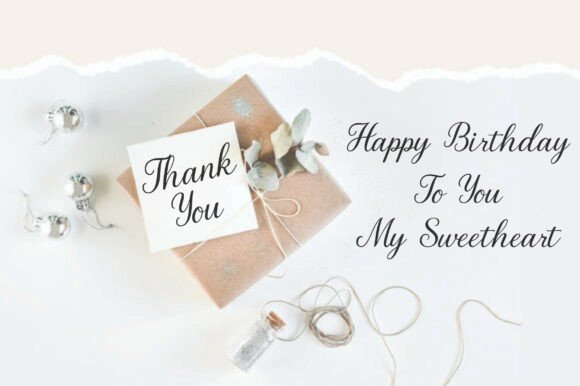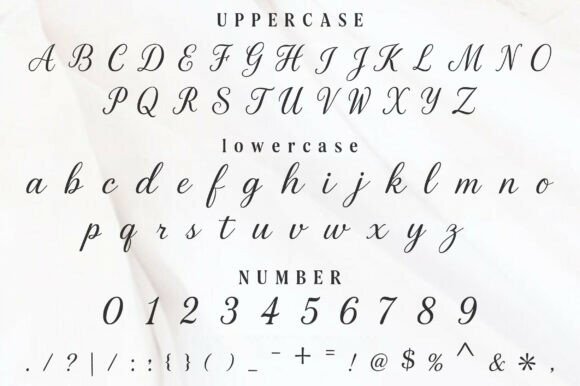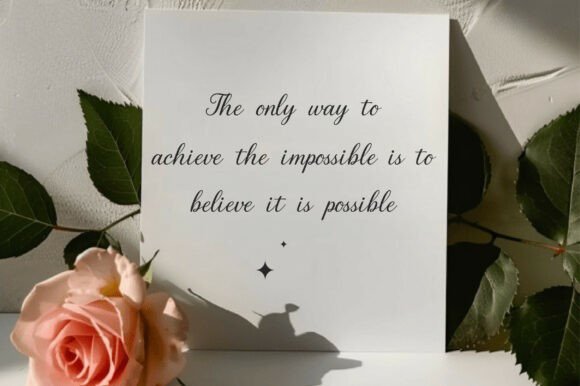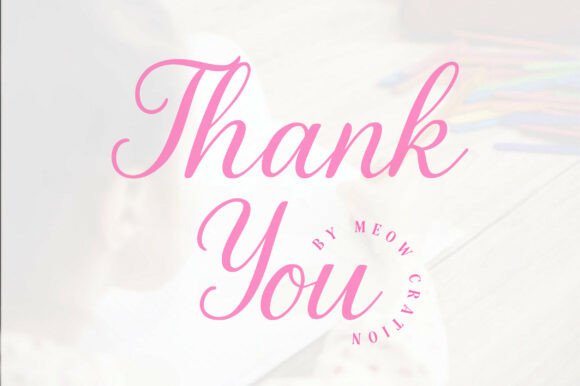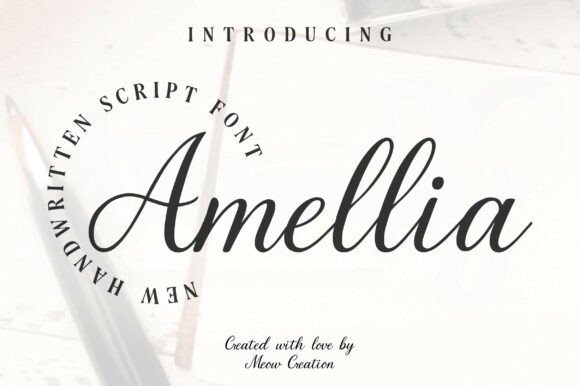
Introducing Amellia Font: Elevate Your Designs with Elegance and Sophistication
In the world of typography, fonts play a crucial role in conveying the tone and aesthetic of a design. For designers and crafters seeking to add a touch of elegance and sophistication to their projects, Amellia Font is an excellent choice. This beautiful, handwritten script font is designed to bring a modern and feminine touch to your designs, making it perfect for a variety of applications.
The Beauty of Amellia Font
Amellia Font is an elegant handwritten script font that boasts smooth curves and a stylish flow, creating a natural handwritten look that is both warm and inviting. Its graceful ligatures and balanced letterforms make it an ideal choice for designers seeking a classy and romantic aesthetic. Whether you’re working on a wedding invitation, branding project, logo design, greeting card, or product packaging, Amellia Font is sure to bring beauty and elegance to every project.
Key Features of Amellia Font
- Elegant Handwritten Script: Amellia Font features a beautiful, handwritten script that adds a touch of sophistication and elegance to your designs.
- Modern and Feminine Touch: With its smooth curves and stylish flow, Amellia Font brings a modern and feminine touch to your projects, making it perfect for designs that require a delicate and refined aesthetic.
- Graceful Ligatures and Balanced Letterforms: The font’s graceful ligatures and balanced letterforms create a natural handwritten look that is both warm and inviting.
- Versatile: Amellia Font is suitable for a variety of design applications, including wedding invitations, branding, logos, greeting cards, and product packaging.
Perfect for Wedding and Branding Designs
Amellia Font is an excellent choice for wedding designs, including invitations, save-the-date cards, and wedding stationery. Its elegant and sophisticated aesthetic makes it perfect for creating beautiful and memorable wedding designs. Additionally, the font’s modern and feminine touch makes it an excellent choice for branding and logo designs, particularly for businesses that require a delicate and refined aesthetic.
Tips for Using Amellia Font
- Pair with Neutral Colors: Amellia Font looks stunning when paired with neutral colors such as white, beige, or light gray. This creates a clean and elegant look that is perfect for wedding designs and branding projects.
- Experiment with Ligatures: Amellia Font features beautiful ligatures that add a touch of elegance and sophistication to your designs. Experiment with different ligatures to create a unique and personalized look.
- Use for Headings and Titles: Amellia Font is perfect for headings and titles, particularly for designs that require a touch of elegance and sophistication.
In conclusion, Amellia Font is a beautiful and elegant handwritten script font that is perfect for designers and crafters seeking to add a touch of sophistication and elegance to their projects. With its smooth curves, stylish flow, and graceful ligatures, Amellia Font is an excellent choice for a variety of design applications, including wedding invitations, branding, logos, greeting cards, and product packaging. Whether you’re a professional designer or a crafty DIY enthusiast, Amellia Font is sure to bring beauty and elegance to every project.